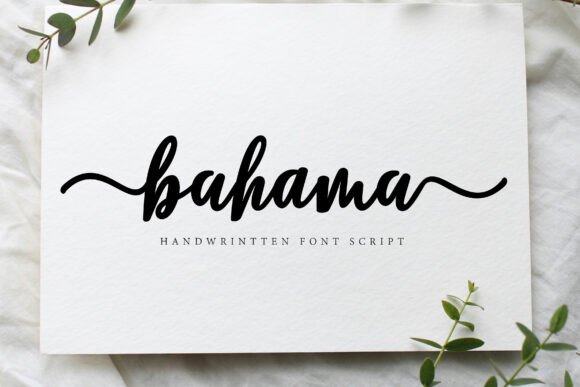
Bahama Font: Elevate Your Design with a Unique Script Style
The world of typography is vast and diverse, offering a multitude of font styles to suit every design need. Among these, the Bahama Font and Bahama Script font style stand out for their elegance, versatility, and the personal touch they bring to any project. Whether you’re a graphic designer, a DIY enthusiast, or a business owner looking to brand your products and marketing materials, the Bahama Script font is an excellent choice. In this article, we’ll explore the features, uses, and benefits of the Bahama Font and Bahama Script font style, and how it can elevate your designs.
Introduction to Bahama Script Font
The Bahama Script font style comes with an amazing character that instantly adds a touch of sophistication and charm to any design. Its unique and flowing script style is ideal for a variety of applications, including logos, name tags, handwritten quotations, product packaging, goods, social media posts, and greeting cards. The font’s versatility and aesthetic appeal make it a popular choice among designers and DIY enthusiasts alike.
Key Features of Bahama Script Font
The Bahama Script font is designed with both functionality and beauty in mind. Here are some of its key features:
- Complete Set of Characters: It contains a complete set of lower and upper case letters, ensuring you have all the characters you need for any project.
- Punctuation and Numbers: Alongside letters, it also includes assorted punctuation marks and numbers, making it a comprehensive font solution.
- Script Style: The flowing script style of Bahama Script font adds an elegant and personal touch to any text, making it stand out.
Uses of Bahama Script Font
The versatility of the Bahama Script font style makes it suitable for a wide range of applications:
- Logo Design: Create unique and memorable logos that stand out with the elegant script of Bahama Font.
- Name Tags: Add a personal and professional touch to name tags for events, conferences, or business meetings.
- Handwritten Quotations: Bring quotations to life with a stylish and readable script that captures the essence of the quoted text.
- Product Packaging: Elevate your product packaging with a font that communicates luxury, quality, and attention to detail.
- Goods and Merchandise: Whether it’s t-shirts, mugs, or bags, Bahama Script font can add a unique charm to your merchandise.
- Social Media: Stand out on social media platforms with stylish text overlays and posts that use the Bahama Font.
- Greeting Cards: Create beautiful and heartfelt greeting cards for any occasion with a font that feels personal and engaging.
Benefits of Using Bahama Script Font
Choosing the Bahama Script font for your projects comes with several benefits:
- Elegance and Sophistication: The script style adds an elegant and sophisticated touch to your designs.
- Versatility: Its suitability for a wide range of applications makes it a versatile addition to your font collection.
- Easy to Read: Despite its script style, the Bahama Font remains clear and easy to read, making it functional as well as beautiful.
- Unique Character: The font’s unique character ensures your designs stand out and don’t get lost in the crowd.
How to Use Bahama Script Font Effectively
To make the most of the Bahama Script font, consider the following tips:
- Pair with Complementary Fonts: When using Bahama Script font alongside other fonts, choose fonts that complement its style without overpowering it.
- Adjust Size and Color: Experiment with different sizes and colors to ensure the font enhances your design without overwhelming it.
- Consider the Context: Ensure the font aligns with the message and tone of your project. The elegance of Bahama Script font makes it suitable for both formal and informal contexts.
The Bahama Font and Bahama Script font style offer a unique combination of elegance, versatility, and charm. Whether you’re working on a professional design project or a personal DIY endeavor, this font can elevate your work and make it stand out. With its comprehensive set of characters, beautiful script style, and wide range of applications, the Bahama Script font is an excellent addition to any designer’s toolkit. Explore the possibilities of what you can create with Bahama Font and bring your designs to the next level.
- What is Bahama Script font?
- Bahama Script font is a unique script font style that adds an elegant and personal touch to any design.
- Can I use Bahama Script font for social media?
- Absolutely, Bahama Script font can enhance your social media posts and text overlays, making them stand out.
- Does Bahama Script font include numbers and punctuation?
- Yes, it includes a complete set of lower and upper case letters, numbers, and assorted punctuation marks.